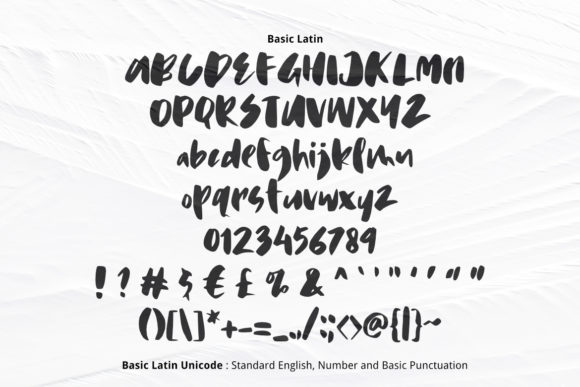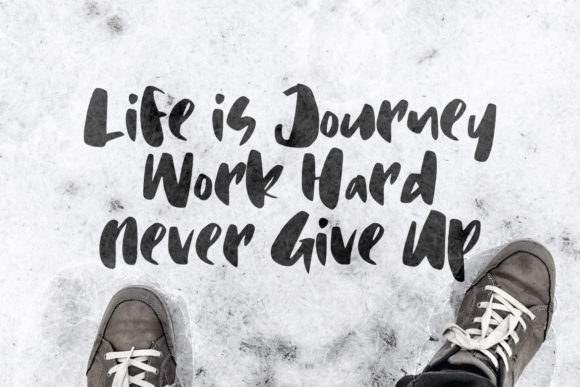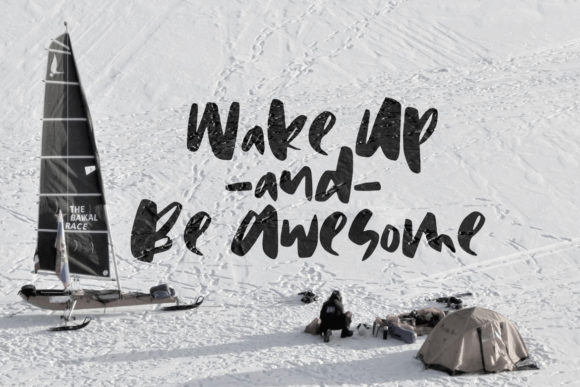
Hawkey Font: The Perfect Blend of Casual and Quirky for Designers and Crafters
In the world of typography, fonts play a crucial role in conveying the tone and personality of a brand or project. For designers and crafters looking for a font that exudes a sense of casual fun and quirkiness, Hawkey Font is an excellent choice. Created using a brush pen, Hawkey is a display font that strikes the perfect balance between cleanliness and playfulness, making it ideal for a wide range of applications.
The Origins of Hawkey Font
Hawkey Font is a product of creative experimentation, born out of the desire to create a font that is both clean and quirky. By using a brush pen, the creator of Hawkey was able to infuse the font with a sense of handcrafted charm, giving it a unique personality that sets it apart from more traditional fonts. The result is a font that feels approachable, friendly, and perfect for projects that require a personal touch.
Characteristics of Hawkey Font
So, what makes Hawkey Font so special? Here are a few key characteristics that make it a standout choice for designers and crafters:
- Clean and Legible: Despite its casual and quirky vibe, Hawkey Font is remarkably clean and easy to read. This makes it perfect for use in logos, branding, and social media, where clarity and legibility are essential.
- Quirky and Playful: Hawkey’s brush pen origins give it a playful, handcrafted feel that’s perfect for crafty DIY projects, invitations, and other creative endeavors.
- Versatile: Hawkey Font is incredibly versatile, and can be used in a wide range of applications, from digital media to print materials.
Uses for Hawkey Font
So, what can you use Hawkey Font for? The possibilities are endless! Here are a few ideas to get you started:
- Logos and Branding: Hawkey Font is an excellent choice for logos and branding, particularly for businesses or projects that want to convey a sense of fun and approachability.
- Social Media: Use Hawkey Font to add a personal touch to your social media graphics, posts, and stories.
- Crafty DIY Projects: Hawkey Font is perfect for crafty DIY projects, such as handmade cards, invitations, and gift tags.
- Invitations and Announcements: The playful, quirky vibe of Hawkey Font makes it an excellent choice for invitations, announcements, and other special occasion graphics.
Tips for Using Hawkey Font
To get the most out of Hawkey Font, here are a few tips to keep in mind:
- Experiment with Sizes: Hawkey Font looks great in a variety of sizes, from small and delicate to large and bold. Experiment with different sizes to find the one that works best for your project.
- Play with Colors: Hawkey Font is incredibly versatile, and looks great in a wide range of colors. Don’t be afraid to experiment with different colors and combinations to find the one that works best for your project.
- Mix and Match: Hawkey Font pairs well with a variety of other fonts and styles. Don’t be afraid to mix and match to create a unique look that’s all your own.
In conclusion, Hawkey Font is a unique and versatile font that’s perfect for designers and crafters looking for a casual, fun, and quirky display font. With its clean and legible design, playful brush pen origins, and wide range of uses, Hawkey Font is an excellent choice for a wide range of projects. Whether you’re working on a logo, social media graphics, or crafty DIY project, Hawkey Font is sure to add a personal touch that sets your work apart.